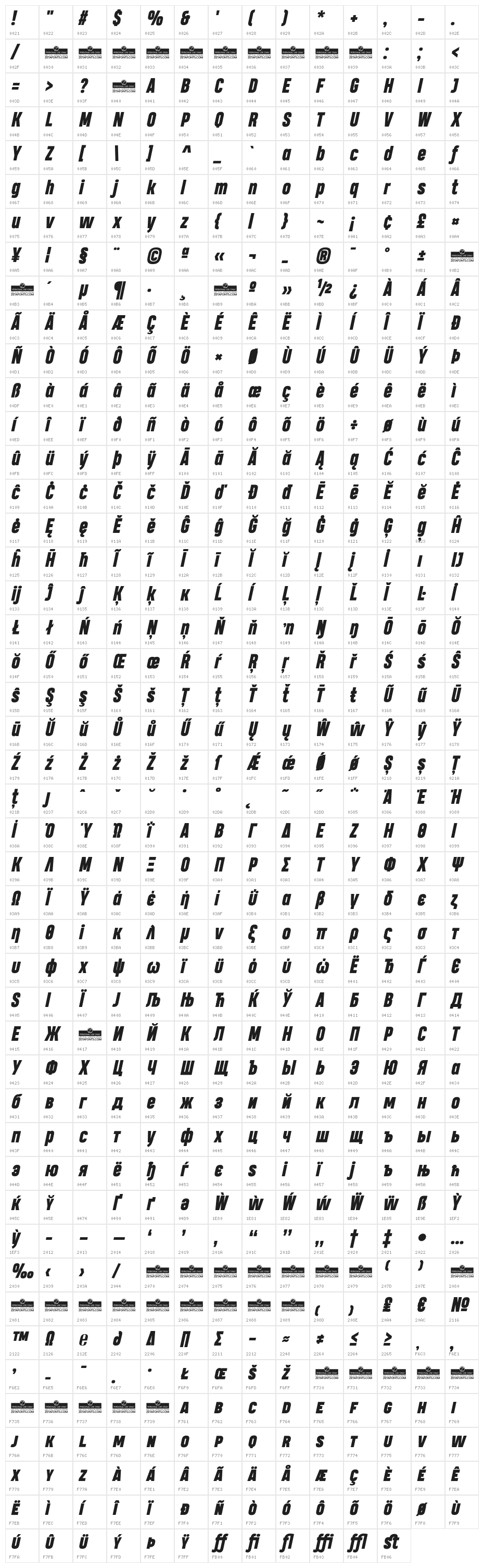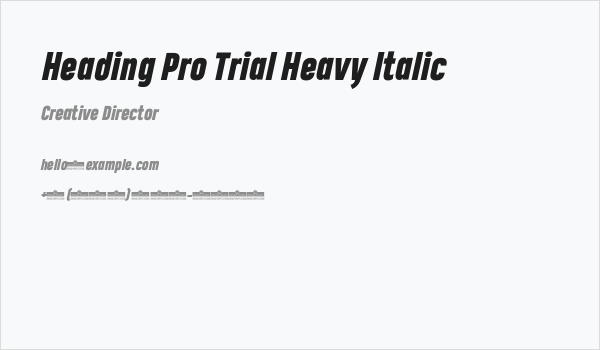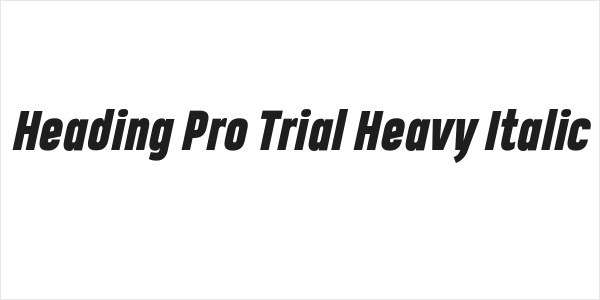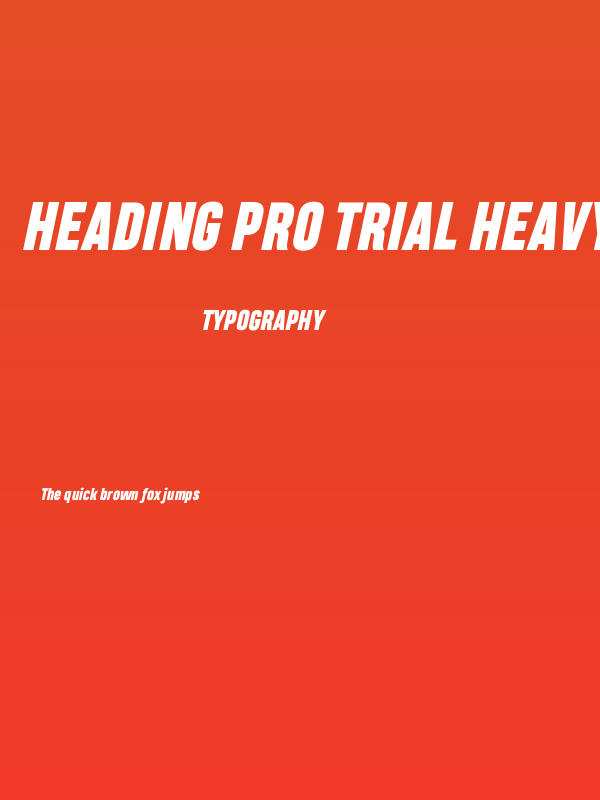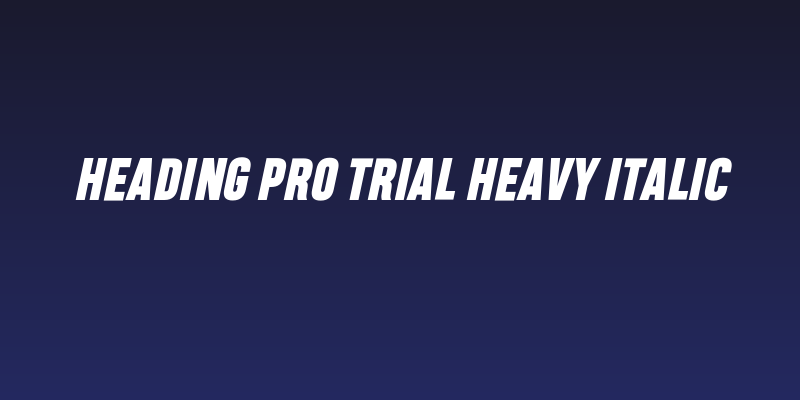
Heading Pro Trial Heavy Italic Font
Heading Pro Trial Heavy Italic Description
This font features a bold and dynamic style with a strong presence. The letters are heavily weighted, providing a sense of authority and impact. The italic slant adds a sense of motion and modernity, making it ideal for attention-grabbing headlines. The uppercase and lowercase letters maintain a consistent width, ensuring readability while emphasizing the boldness of the design. The numerals and special characters are designed to match the overall aesthetic, contributing to a cohesive look. This font is perfect for projects that require a strong visual statement.
| Proposed Projects | Ideal for headlines, posters, branding, and advertising materials. |